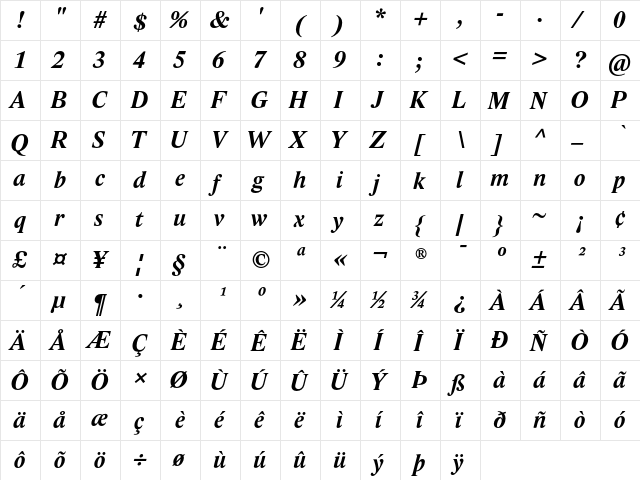
Lido STF Bold Italic Font Preview
| Designer | Frantisek Storm |
Design Context for Lido STF Typeface
Lido STF takes a measured approach to typography — its balanced proportions and neutral character make it a reliable workhorse for both digital and print work. The dynamic lean of this cut emphasises speed and emphasis in any layout. The heavy weight commands attention and anchors typographic hierarchies.
Pro Tip: Try Lido STF for annotation and caption copy alongside an upright companion — the contrast in angle creates a dynamic but ordered typographic system.